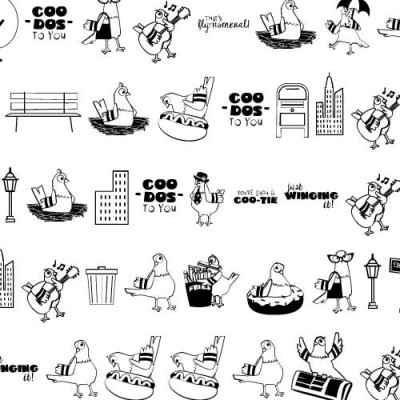
DB City Coo Crew - Too - DB
This fun doodlebat font features 26 more pigeons in the city, perfect for cards, crafts, gifts, decor, classrooms, planner stickers, scrap book pages and more!